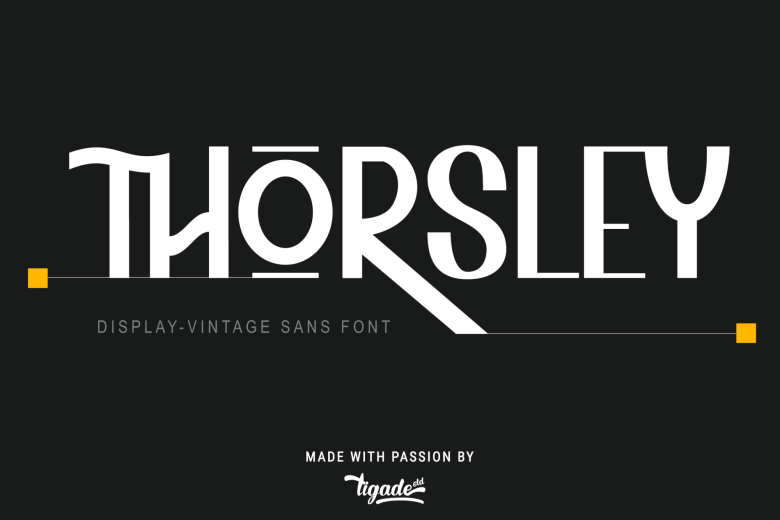
Thorsley Display Vintage Sans Font
Thorsley Display Vintage Sans Font is a classic typeface that inspired by the letters used in old advertisement and packaging. Its rigid shape gives you strong, sharp and blocky feelings, no curves were harmed in the making of this typeface.